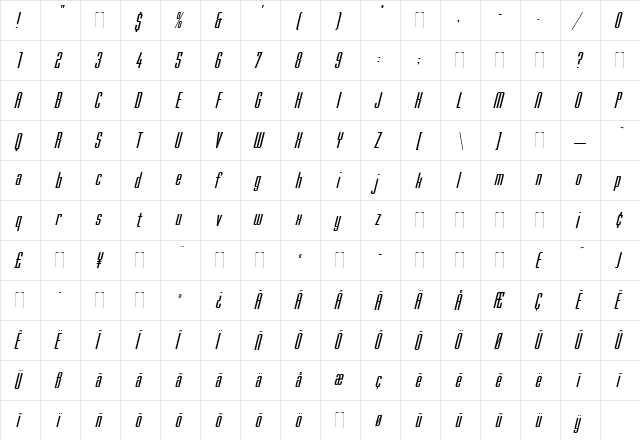
Mekanik Italic Regular
Design Context for Mekanik Italic Typeface
Mekanik Italic takes a measured approach to typography — its balanced proportions and neutral character make it a reliable workhorse for both digital and print work. Its italic angle brings a sense of urgency and motion to the letterforms.
Pro Tip: Try Mekanik Italic for annotation and caption copy alongside an upright companion — the contrast in angle creates a dynamic but ordered typographic system.